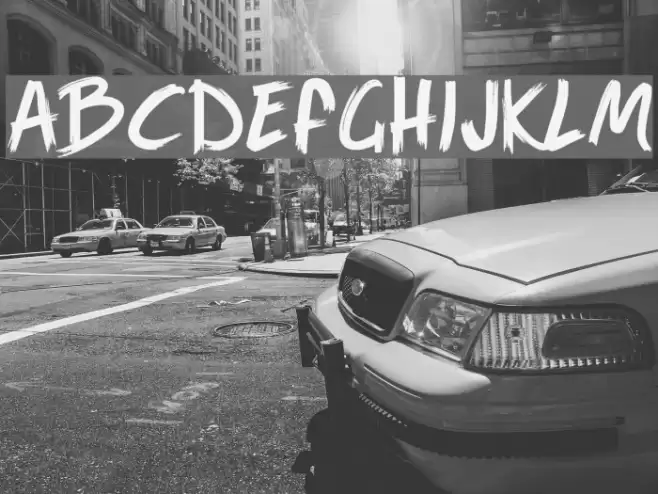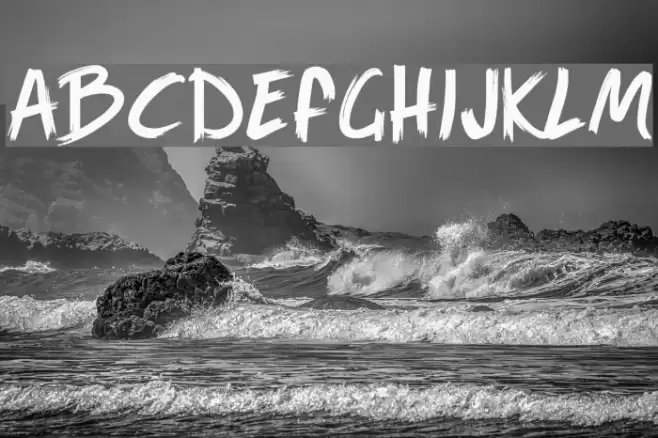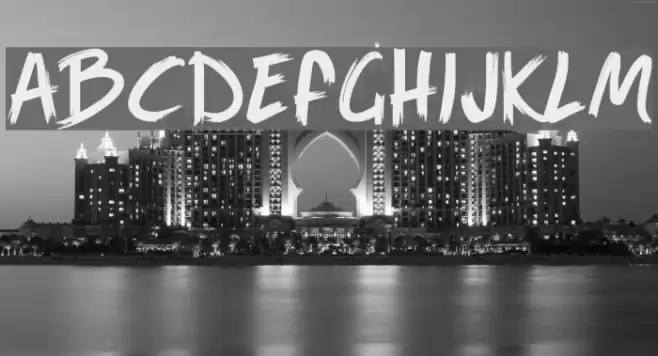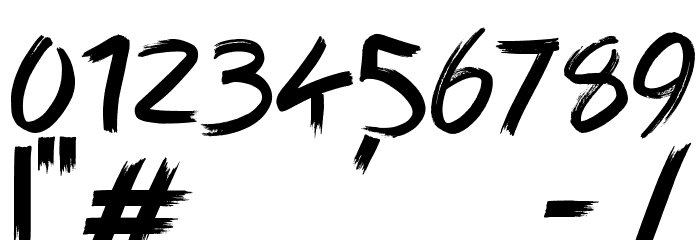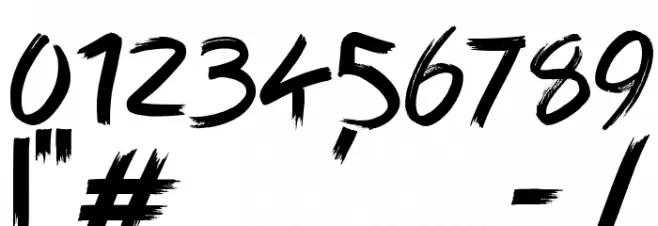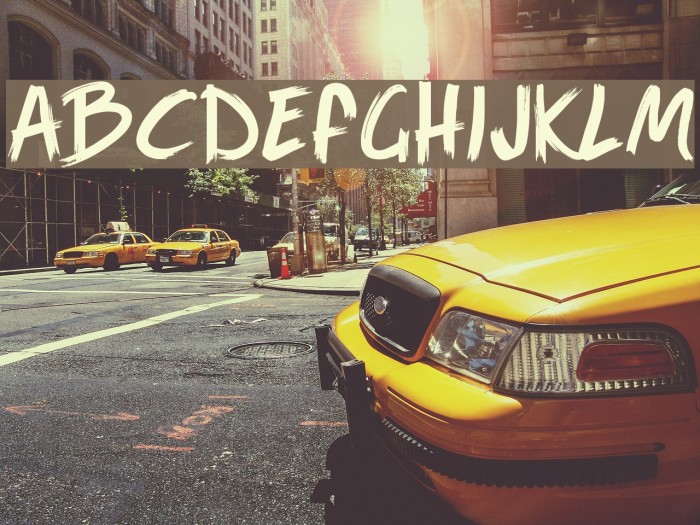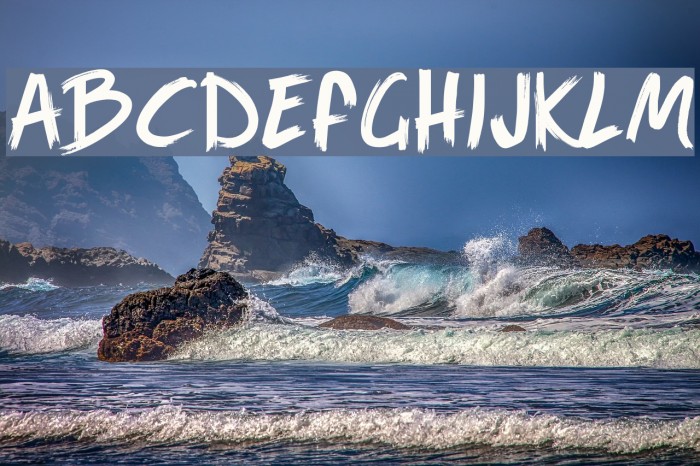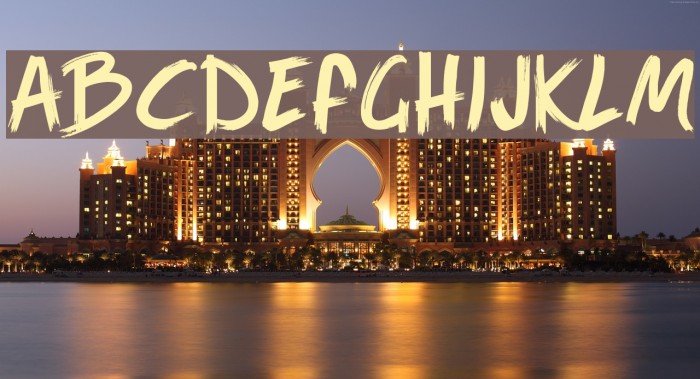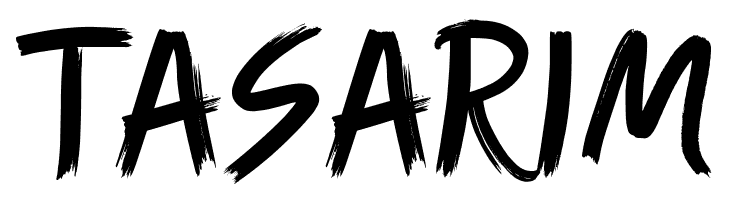
Game of Brush Font
Game of Brush Description
This font exudes a dynamic and energetic feel, characterized by its brush-like strokes that convey a sense of movement and fluidity. The letters are bold and slightly irregular, adding a handcrafted touch that is both artistic and expressive. The uppercase and lowercase letters maintain a consistent style, with varying stroke widths that enhance its visual interest. Numbers and special characters follow the same brush-stroke theme, ensuring a cohesive look across all glyphs. This font is ideal for projects that require a bold statement or a creative flair.
A bold, brush-style font with dynamic, handcrafted strokes from Uncategorized fonts.
- Proposed Projects: Ideal for posters, branding, social media graphics, and creative projects that require a bold, artistic touch.